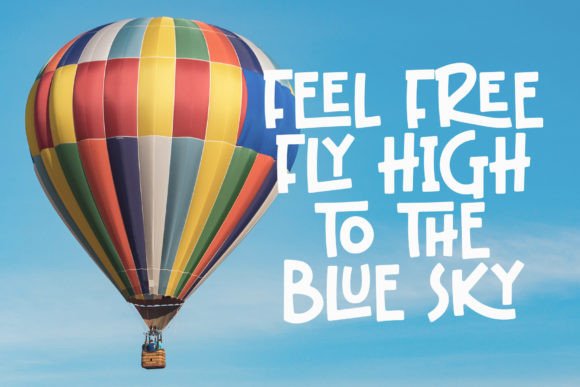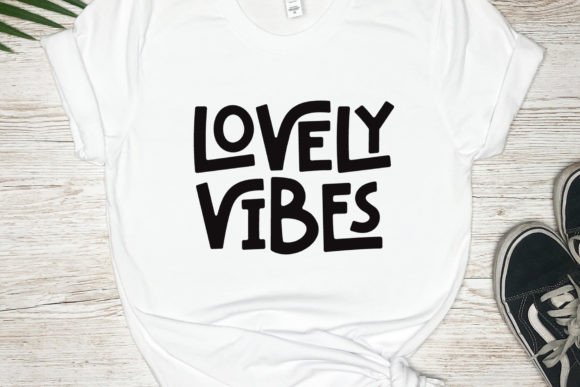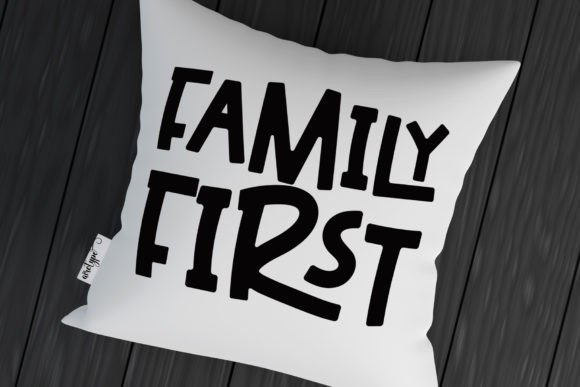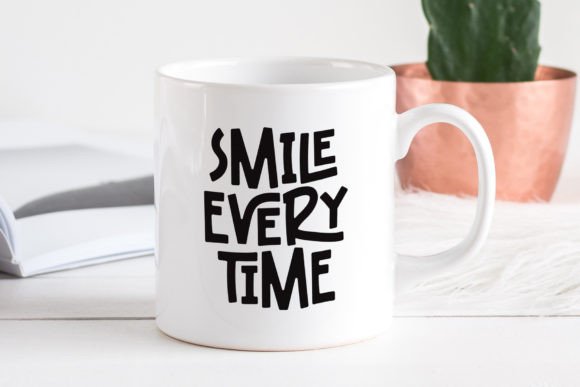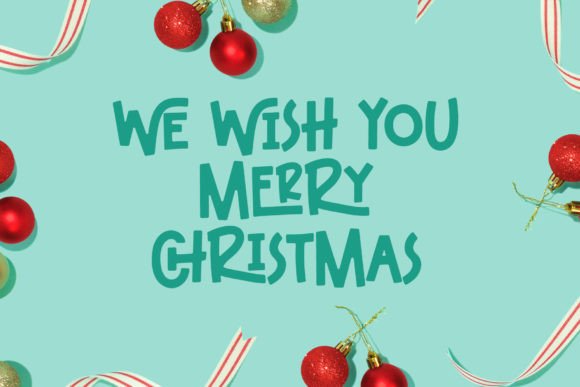
Introducing Birthday Verygood Font: The Perfect Messy and Cute Display Font
Are you tired of using the same old fonts for your designs? Look no further! Birthday Verygood Font is here to shake things up with its edgy and quirky vibe. This messy and cute display font is perfect for creating designs that require a laid-back accent but also need to make an impact. In this article, we’ll dive into the features and benefits of Birthday Verygood Font, and explore how it can elevate your designs.
The Unique Charm of Birthday Verygood Font
Birthday Verygood Font is a one-of-a-kind display font that boasts a unique charm. Its messy and cute aesthetic is perfect for designers who want to add a touch of personality to their work. The font’s edgy and quirky vibe is sure to make your designs stand out from the crowd. Whether you’re working on a project that requires a fun and playful tone or a more laid-back and casual feel, Birthday Verygood Font is the perfect choice.
Birthday Verygood Font is a versatile font that’s perfect for designers and crafters alike. Whether you’re working on a graphic design project, creating digital art, or crafting handmade cards and gifts, this font is sure to be a valuable addition to your toolkit. The font’s messy and cute aesthetic makes it perfect for a wide range of projects, from birthday cards and invitations to posters and social media graphics.
Use Birthday Verygood Font for:
- Graphic design projects, such as posters, flyers, and brochures
- Digital art, including illustrations and graphics
- Handmade cards and gifts, such as birthday cards and scrapbook pages
- Social media graphics, including Facebook and Instagram posts
- Signs and banners, including event signs and storefront banners
Tips for Using Birthday Verygood Font
Here are a few tips for getting the most out of Birthday Verygood Font:
- Experiment with different font sizes and colors to add visual interest to your designs
- Use the font’s alternate characters and ligatures to add personality to your designs
- Pair Birthday Verygood Font with other fonts to create a unique and eye-catching combination
- Don’t be afraid to get creative and try new things – the font’s messy and cute aesthetic is perfect for experimentation
In conclusion, Birthday Verygood Font is a unique and versatile display font that’s perfect for designers and crafters alike. Its messy and cute aesthetic, edgy and quirky vibe, and PUA encoding make it a valuable addition to any design toolkit. Whether you’re working on a graphic design project, creating digital art, or crafting handmade cards and gifts, Birthday Verygood Font is sure to help you create designs that are both laid-back and impactful. So why wait? Download Birthday Verygood Font today and start adding a touch of personality to your designs!